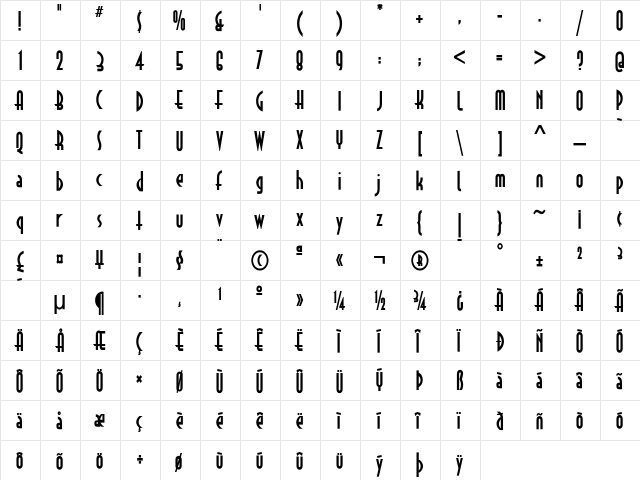
Astrud Regular Font Preview
Astrud Regular
Astrud Regular Font Details
| Foundry | P. Wiegel, Capitals by Earan Newman |
| Designer | P. Wiegel |
Design Context for Astrud Typeface
Astrud is a composed and adaptable typeface that performs quietly and consistently across a wide range of design contexts.